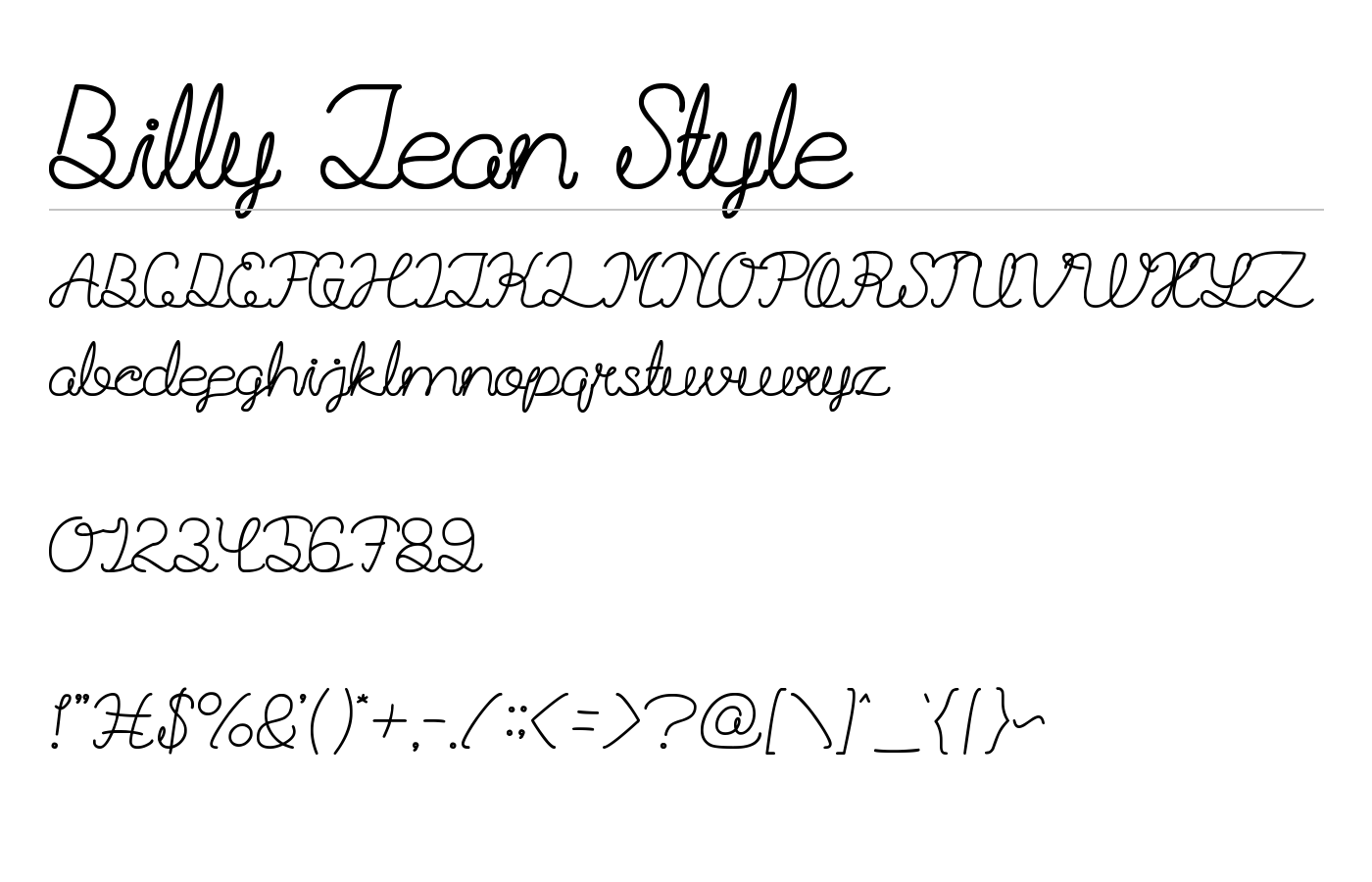
Billy Jean Style is a delicate, hand-drawn script font featuring thin, continuous lines that create a casual yet elegant feel. Its narrow, airy letterforms and lightly playful curves make it ideal for creative branding, invitations, and stylish logos where a personal, artistic touch is desired. This font works best in decorative uses where charm and sophistication are key.
Billy Jean Style Font
About Billy Jean Style Font